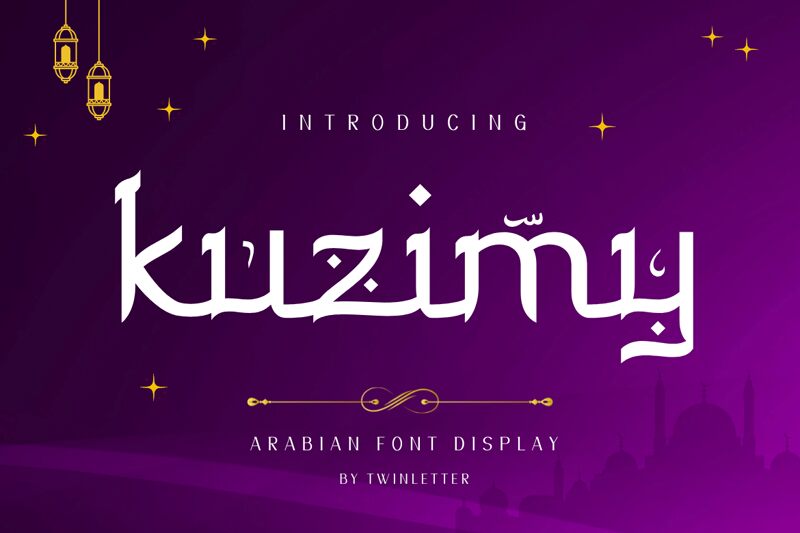
Kuzimy, a semi-light faux Arabic font designed by Twinletter, offers a seamless way to craft stunning designer-quality designs. With its versatile styles and upper/lower case alternates, it caters to various creative projects.
Whether you're working on branding materials, print designs, or digital content, Kuzimy's unique Arabic-inspired style adds an elegant touch. Its carefully crafted letterforms and distinct shapes make it effortless to create professional designs that embody the essence of Arabic aesthetics.
Elevate your projects with Kuzimy and unleash your imagination in the realm of Arabic-style design.